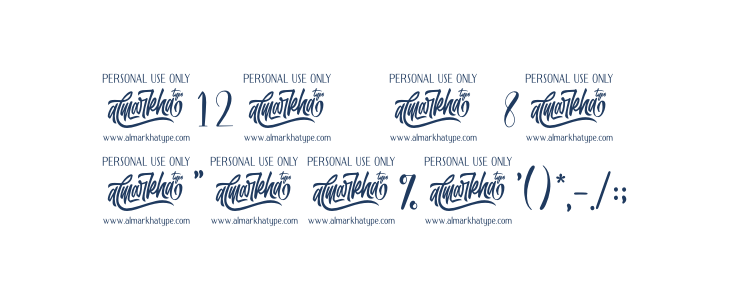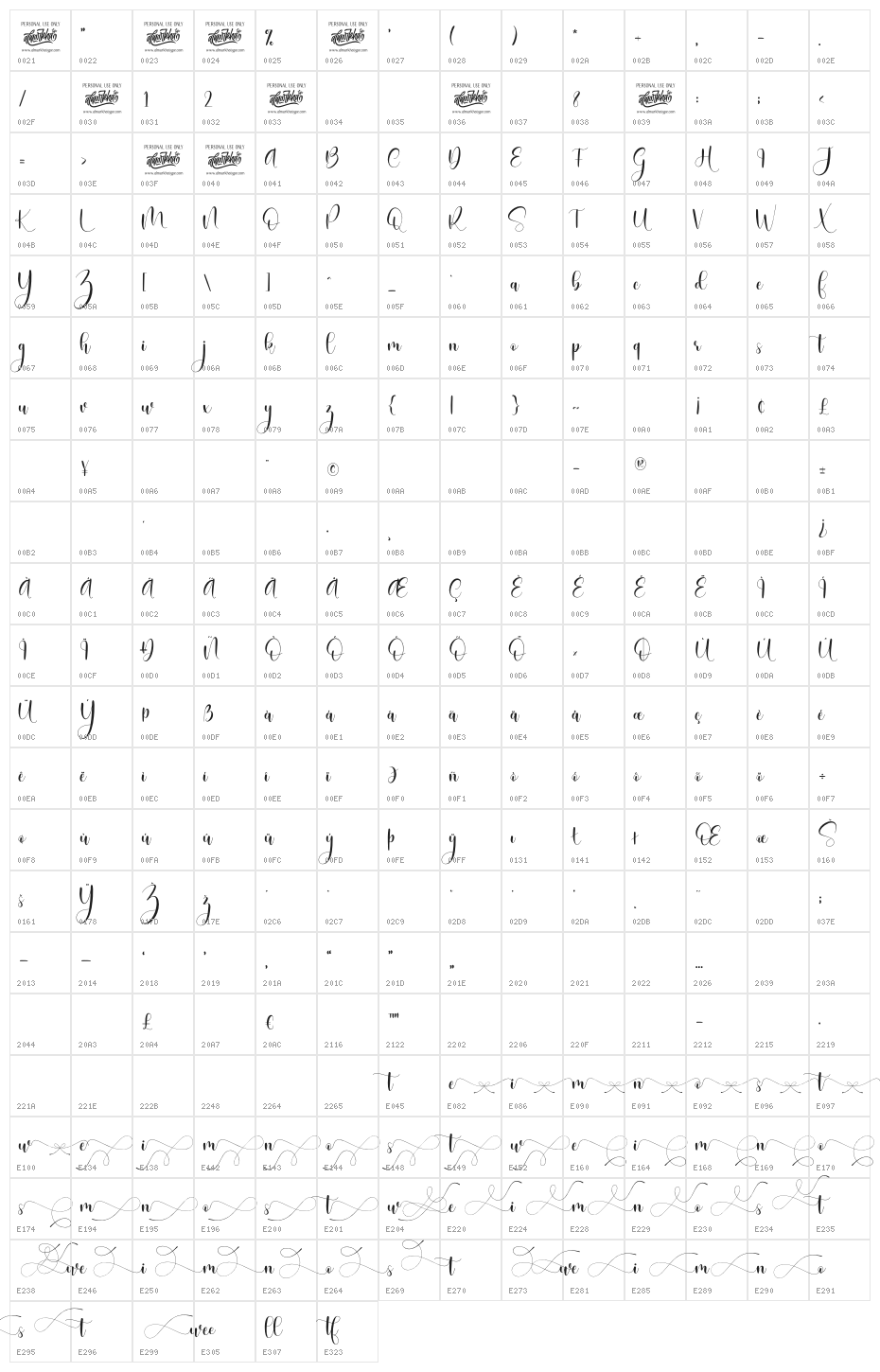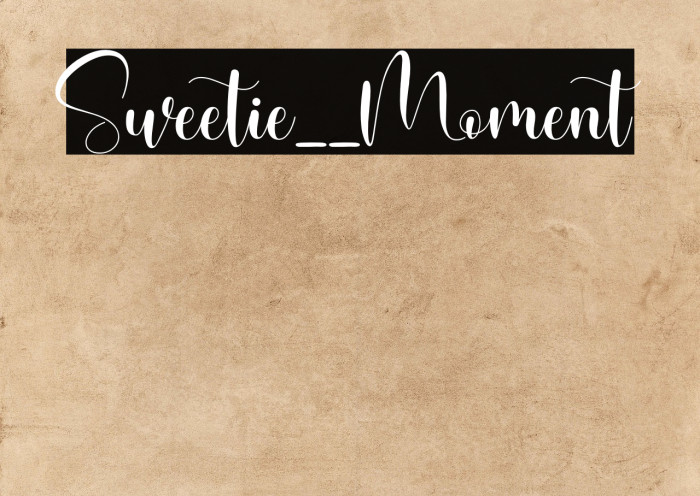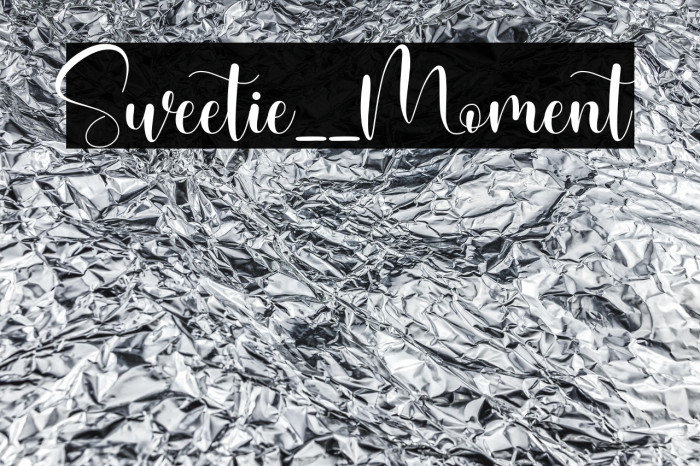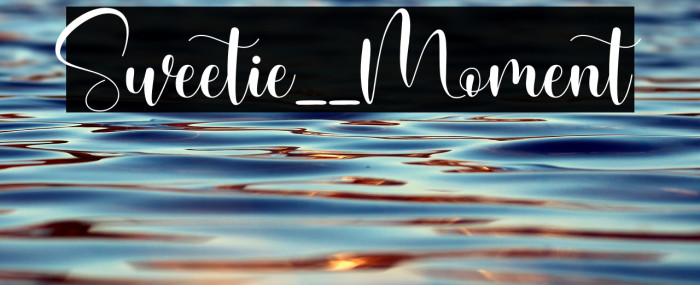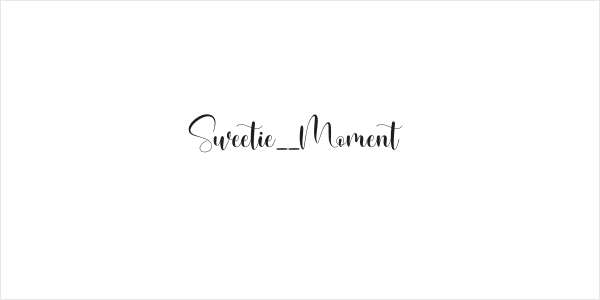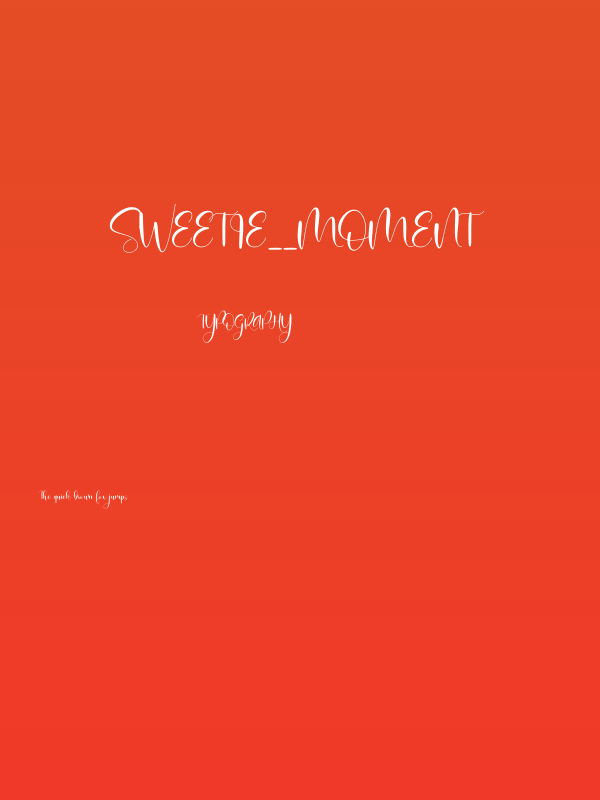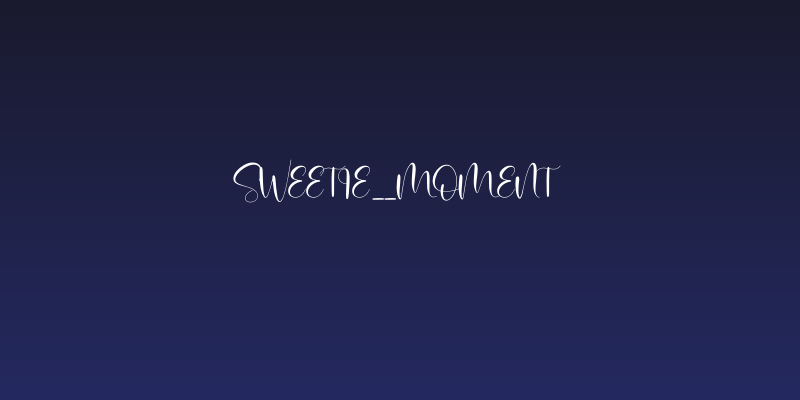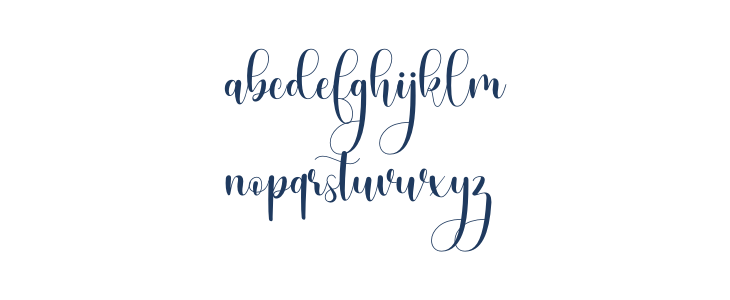
Sweetie__Moment Font
Sweetie__Moment Description
This font is a beautifully crafted script typeface that exudes elegance and sophistication. The uppercase letters are characterized by their flowing, interconnected strokes, which give a sense of movement and grace. The lowercase letters maintain a consistent style with a slightly more restrained flourish, making them highly legible while still retaining a decorative touch. The numerals and special characters are designed to complement the overall aesthetic, featuring similar curves and loops. This font is perfect for creating a romantic or luxurious feel, ideal for invitations, branding, and other creative projects.
| Overall Style | Elegant, Decorative |
| Proposed Projects | Ideal for wedding invitations, luxury branding, greeting cards, and elegant logo designs. |